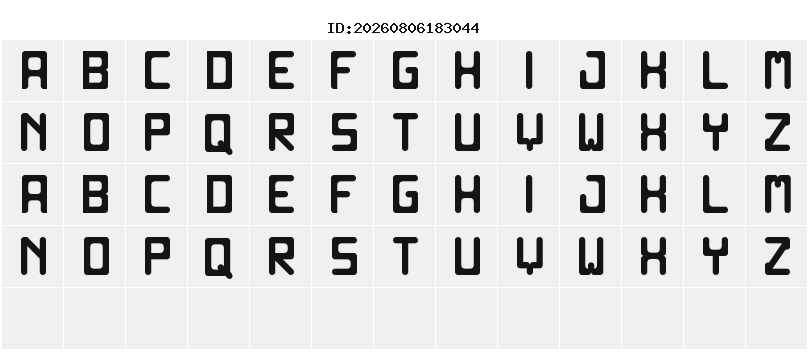
About Old computer St.ttf
Old computer St.ttf is a modern, elegant sans-serif font designed for ultimate readability and visual harmony. Perfect for branding, headlines, web design, and print materials.